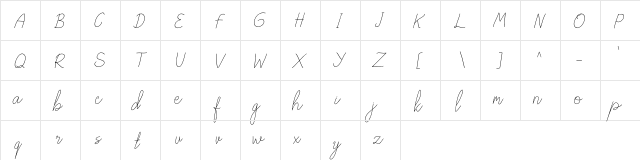
elfia Regular Font Preview
elfia Regular
Design Context for elfia Typeface
elfia takes a measured approach to typography — its balanced proportions and neutral character make it a reliable workhorse for both digital and print work.